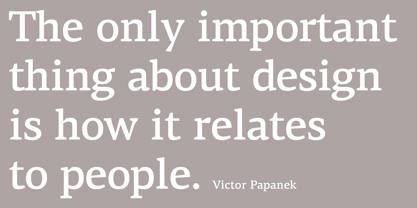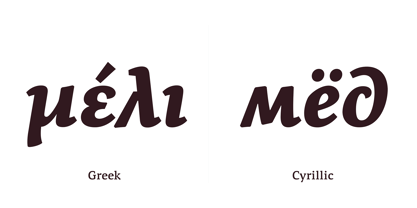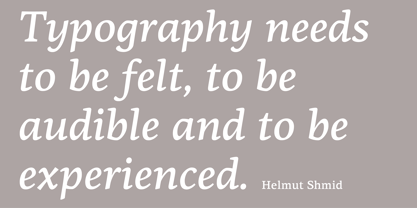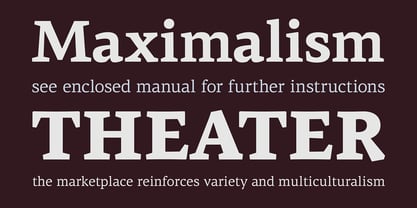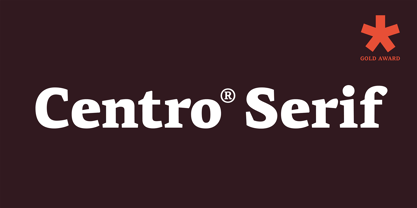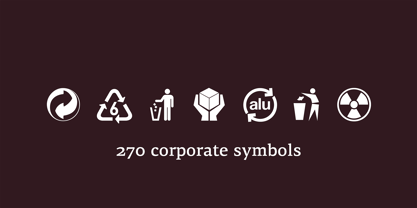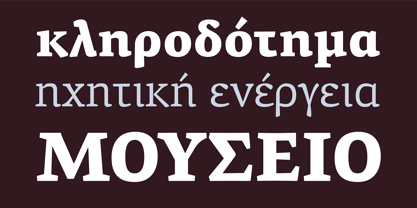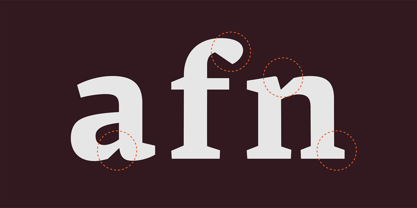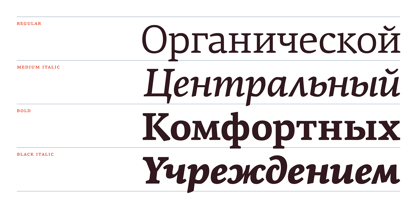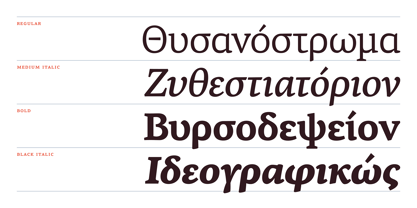
PF Centro Serif Pro
PF Centro® Serif Pro
by Parachute
PF Centro Serif Pro Font Family was designed by Panos Vassiliou and published by Parachute. PF Centro Serif Pro contains 8 styles family package options.
Centro Serif Pro is an award-winning typeface. It received a Gold Award from the European Design Awards 2008 and an Excellence Award from the International Type Design Competition 2009 as part of the Centro Pro type system. This large series of 40 fonts with 1519 glyphs each is composed of three superfamilies (serif, sans and slab), includes true italics and supports Latin, Greek and Cyrillic. According to the jury of the European Design Awards “...Centro Pro is an almost ‘invisible’ typeface with distinct personality, it has legibility as its main attribute and is ideal for a wide range of design works. It does not attract any unnecessary attention, but rather serves its purpose. A rare case of contemporary type family working across three alphabets. Centro Pro meets an ever-growing demand for such typefaces among pan-European companies and institutions”. Centro Pro has become very popular among printed media and is ideal choice for newspapers, magazines and corporate applications. Furthermore every font in this series has been completed with 270 copyright-free symbols, some of which have been proposed by several international organizations for packaging, public areas, environment, transportation, computers, fabric care and urban life.